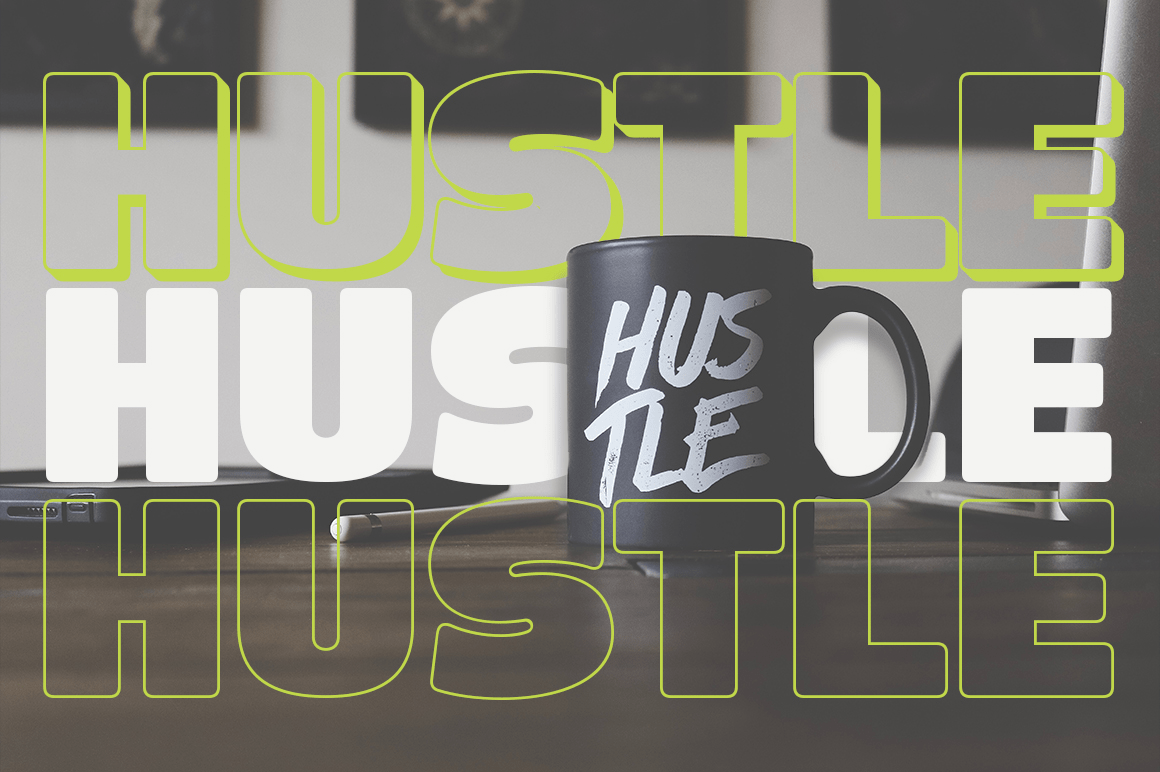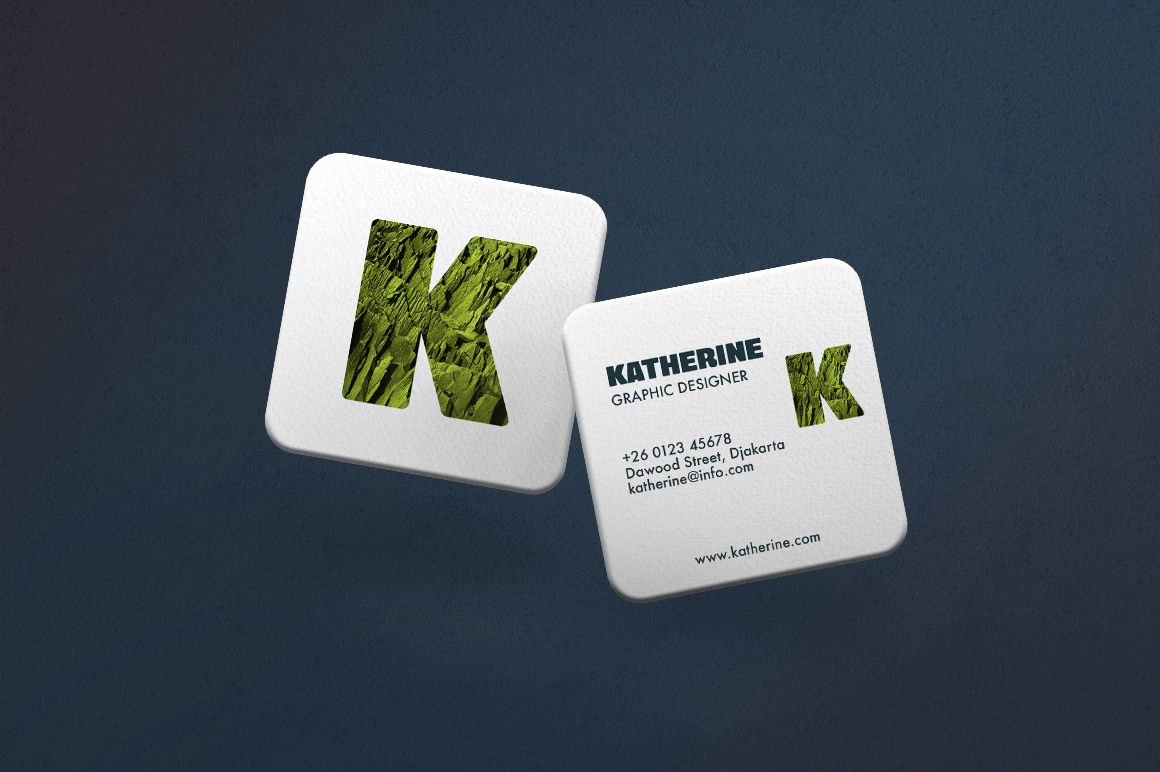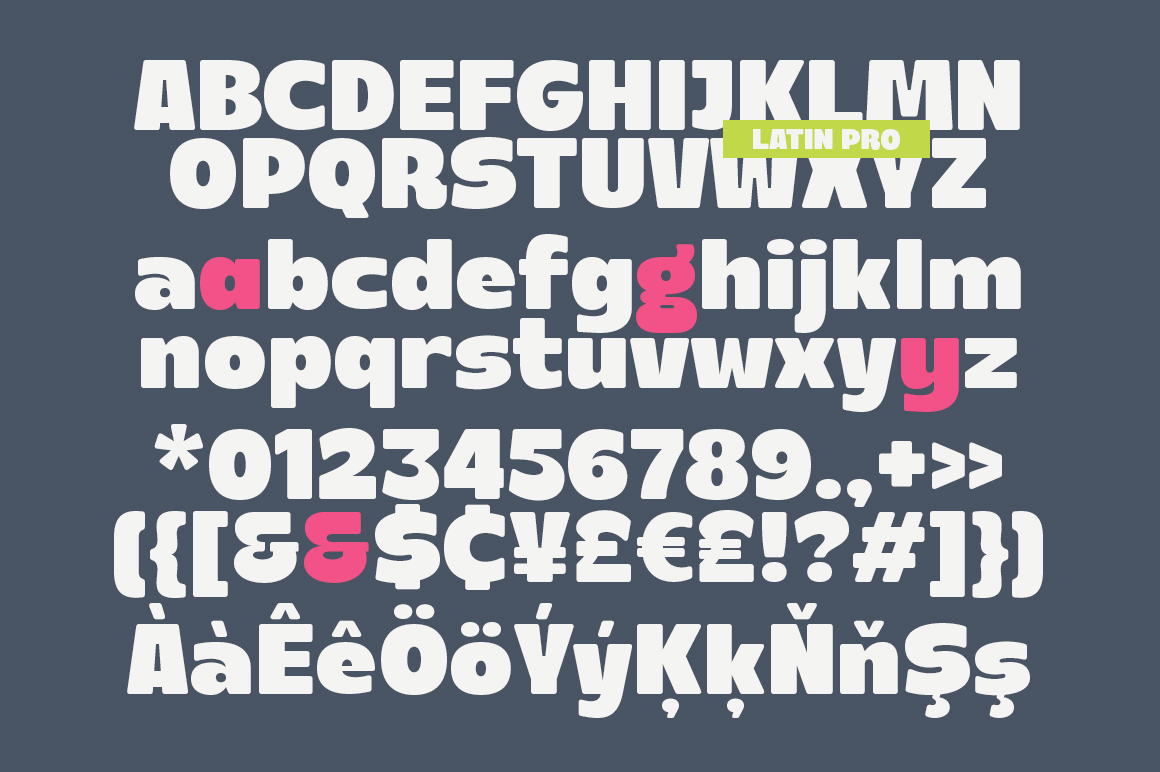
About Hushy
Hushy is a rounded bold and Modern display typeface featuring characters that stand out from every background. It has multilingual language, it useful for your a cool and coolest project up next. Suitable for logos, posters, packaging, branding, cool…